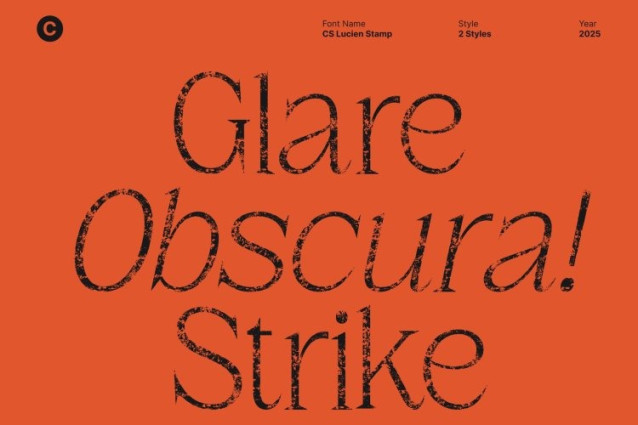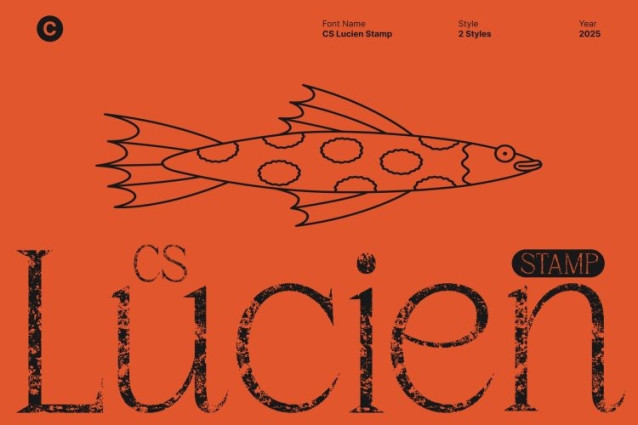
CS Lucien Stamp Font
CS Lucien Stamp Font This is a elegant serif font crafted with graceful curves and beautifully elongated letterforms that immediately convey luxury and sophistication. Its carefully designed proportions create a high-end aesthetic, giving every word a polished and refined presence.
Expressive Stamp Texture for Unique Artistic Character
Enhancing its refined design, incorporates a distinctive stamp texture that adds depth, personality, and visual interest. This handcrafted detail transforms the font from simply elegant to truly expressive, giving each character an artisanal quality that makes your designs feel unique and memorable. The texture adds a subtle tactile dimension, bringing warmth and character to every layout.
Ideal for Luxury Branding and Editorial Design
This font shines in high-end branding, editorial layouts, and premium design projects. Its elongated details and smooth curves communicate sophistication, while the expressive texture adds a modern, artistic twist. Use it for logos, packaging, magazine spreads, and luxury promotional materials to convey a sense of exclusivity and refinement.
Versatile and Stylish for Creative Display Applications
Beyond luxury branding, adapts seamlessly to various display purposes. From elegant posters to sophisticated editorial content and creative advertising, it combines readability with high-end aesthetic appeal. Its harmonious blend of elegance, refinement, and expressive detail ensures that every project feels polished, distinctive, and visually captivating.